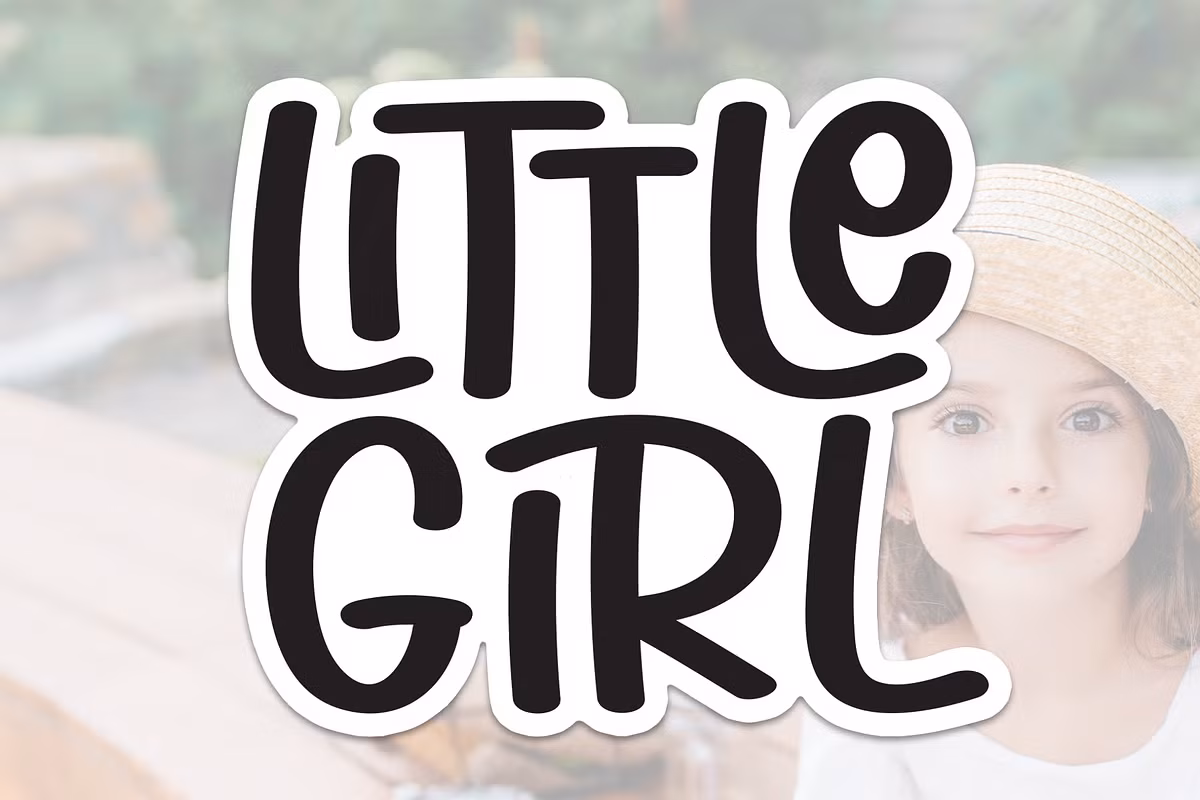
Little Girl | Script Font Free Download
Little Girl | Script Font Free Download is a playful and charming handwritten script typeface designed to bring warmth and personality to your designs. With its smooth, flowing letterforms and friendly style, this font is perfect for greeting cards, children's products, social media graphics, invitations, and personalized branding. It’s designed to feel inviting, casual, and full of character.
Using the Little Girl | Script Font Free Download adds a lighthearted, whimsical touch to your projects. Whether you're creating a fun logo, crafting a whimsical quote graphic, or designing a friendly invitation, this font brings a fresh, joyful energy to your typography.